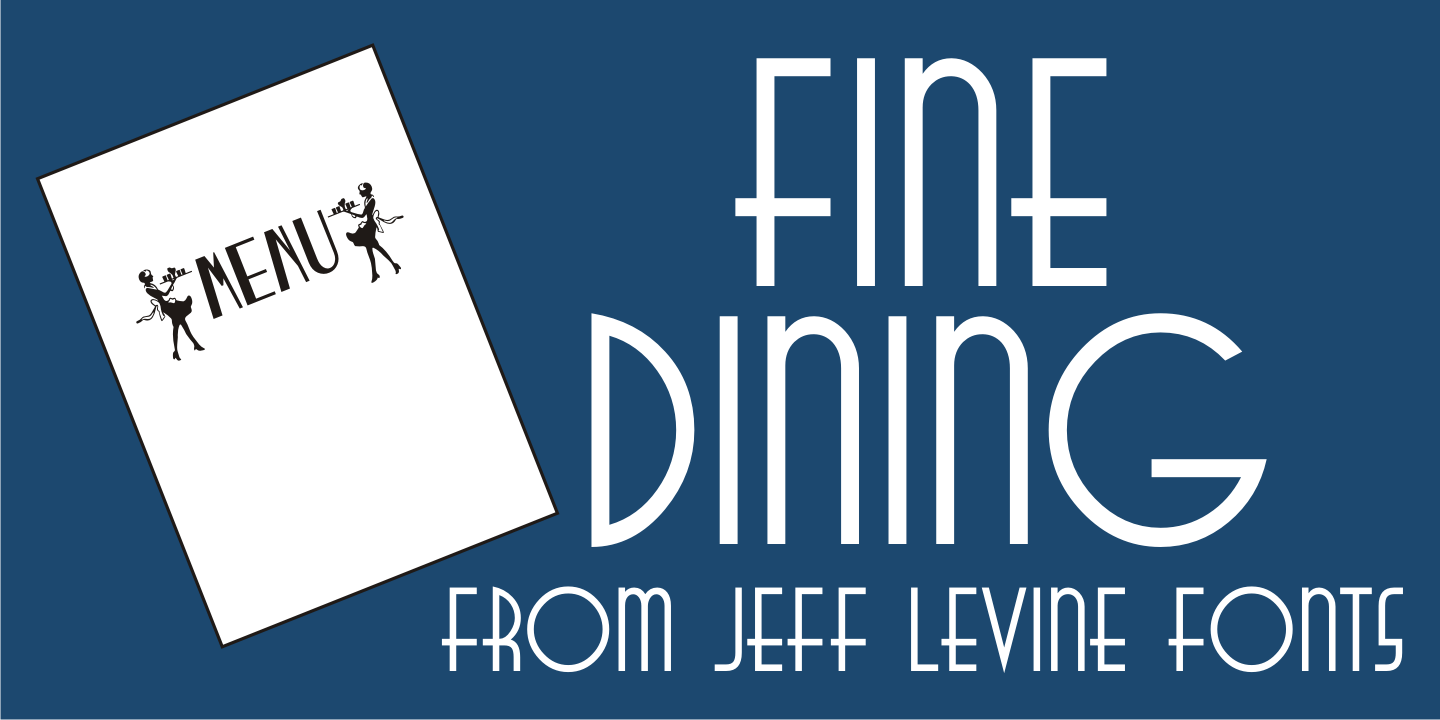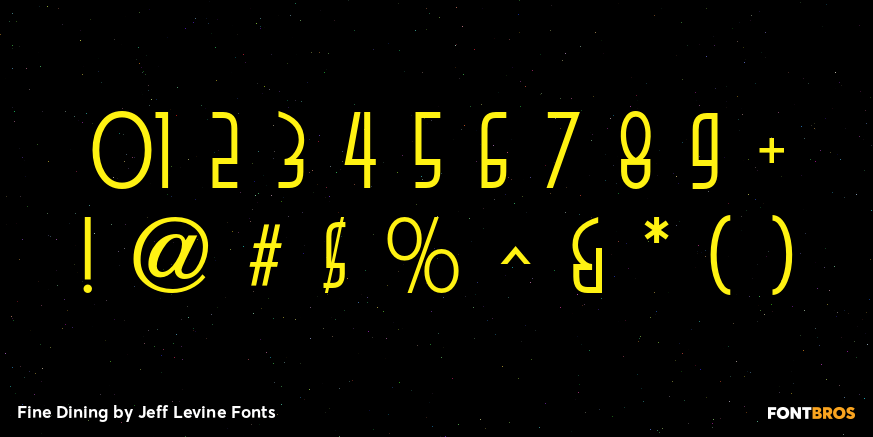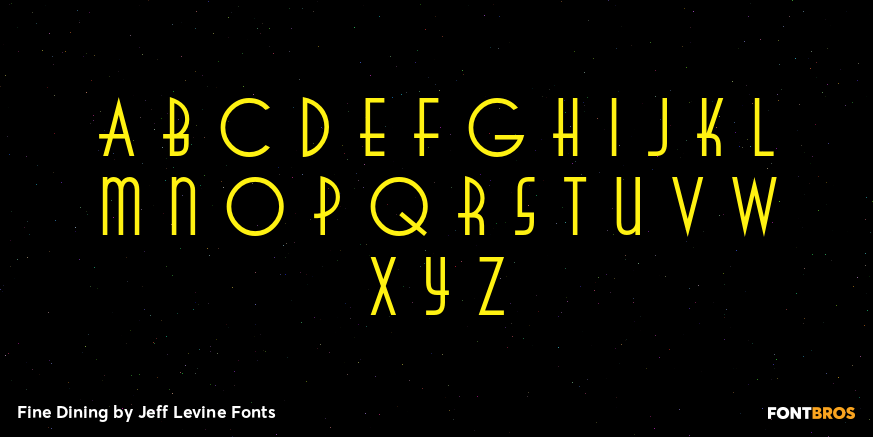
Fine Dining
The lettering for Fine Dining JNL was inspired by the opening titles for the 1940 Barbara Stanwyck-Fred MacMurray film 'Remember the Night”.
A stylized Art Deco sans, the typeface conjures up images of elegant dining, being out on the town and all we warmly associate with the night life of the 1930s and 1940s.
Fine Dining JNL Regular by Jeff Levine Fonts